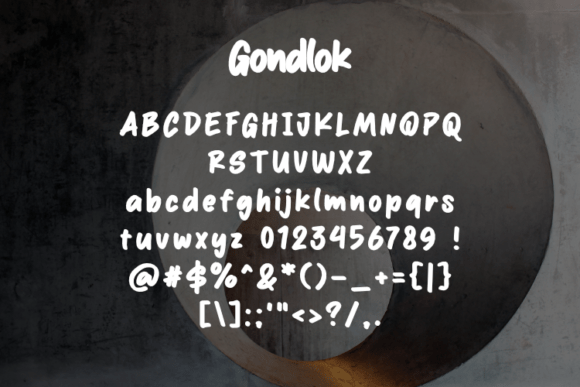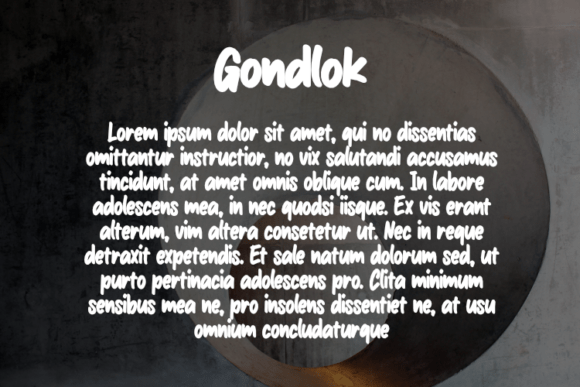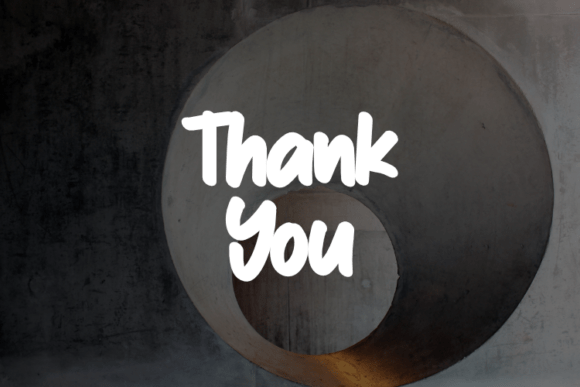
Introducing Gondlok: The Ultimate Font for Designers and Crafters
In the world of design, a good font can make all the difference. It can elevate your project from ordinary to extraordinary, and convey the message you want to communicate with your audience. For designers and crafters looking for a versatile typeface that can turn every design into a visual masterpiece, look no further than Gondlok. This exciting new font is specifically designed with apparel in mind, such as t-shirts or clothing items, but its adaptability and functionality extend far beyond fabrics.
The Birth of Gondlok
Gondlok is the brainchild of a team of designers who sought to create a font that could seamlessly integrate into various design projects. They wanted to craft a typeface that was not only aesthetically pleasing but also highly versatile and functional. After months of meticulous design and testing, Gondlok was born. This font is the perfect blend of modern style and classic elegance, making it suitable for a wide range of design applications.
One of the standout features of Gondlok is its incredible versatility. While it was initially designed with apparel in mind, this font works admirably across all designs and software. Whether you’re creating a logo, a t-shirt design, a brochure, or a website, Gondlok can handle it with ease. Its clean lines, balanced proportions, and highly legible letterforms make it the perfect choice for both digital and print projects.
Elevate Your Design Game
With Gondlok, you can significantly elevate your design game. This font is designed to help you create visually stunning projects that capture the attention of your audience. Its unique style and versatility make it an excellent choice for designers looking to push the boundaries of their creativity. Whether you’re a seasoned professional or just starting out, Gondlok can help you take your designs to the next level.
Ideal for All Designs
Gondlok is more than just a font – it’s a design solution. Its flexibility and adaptability make it suitable for a wide range of projects, from fashion and lifestyle to advertising and marketing. This font can truly bring your visions to life, allowing you to communicate your message with clarity and style. Whether you’re designing for digital or print, Gondlok is the perfect choice for any project.
What Makes Gondlok Special?
• Versatility: Works seamlessly across all designs and software.
• Legibility: Highly legible letterforms perfect for digital and print projects.
• Style: Unique and modern style that turns every design into a visual masterpiece.
• Flexibility: Suitable for a wide range of projects, from apparel to advertising.
Font Name Gondlok Font
Author Eric Kusuma
In conclusion, Gondlok is a game-changing font that can elevate your design game significantly. Its versatility, ease of use, and unique style make it an excellent choice for designers and crafters looking to create stunning projects. Whether you’re designing for apparel, digital, or print, Gondlok is the perfect solution. With this font, you can bring your visions to life and communicate your message with clarity and style. So why wait? Get your hands on Gondlok today and start creating visual masterpieces that leave a lasting impression.
With Gondlok, the possibilities are endless. Join the community of designers and crafters who have already discovered the power of this incredible font. Elevate your design game and create visual masterpieces that inspire and engage your audience.